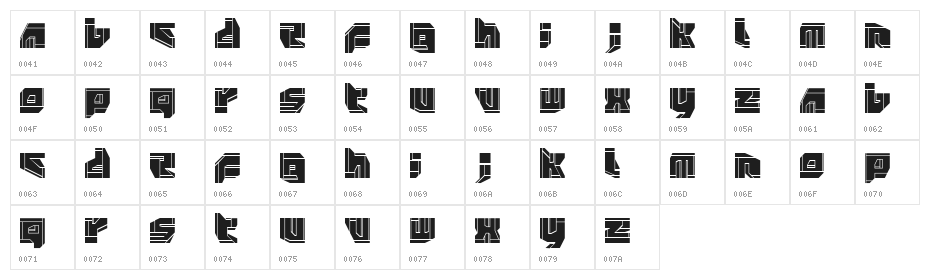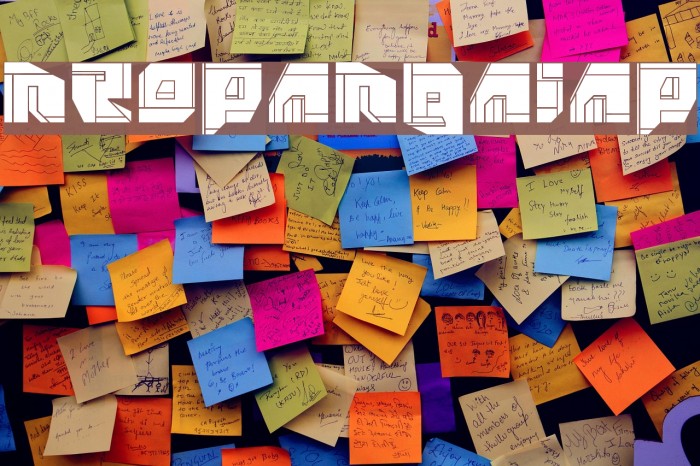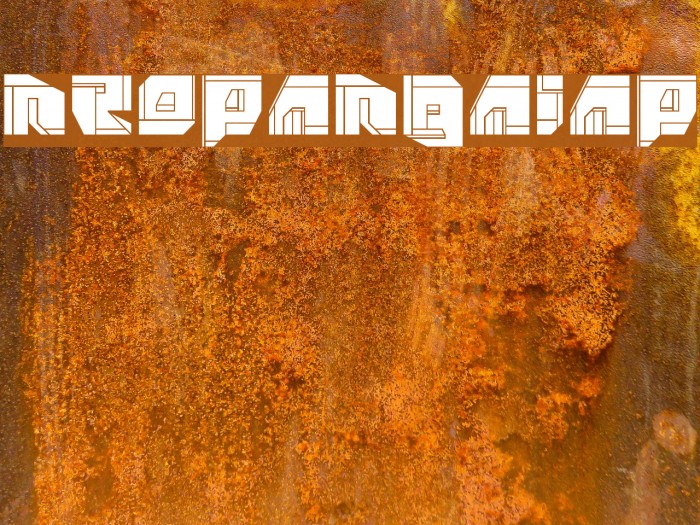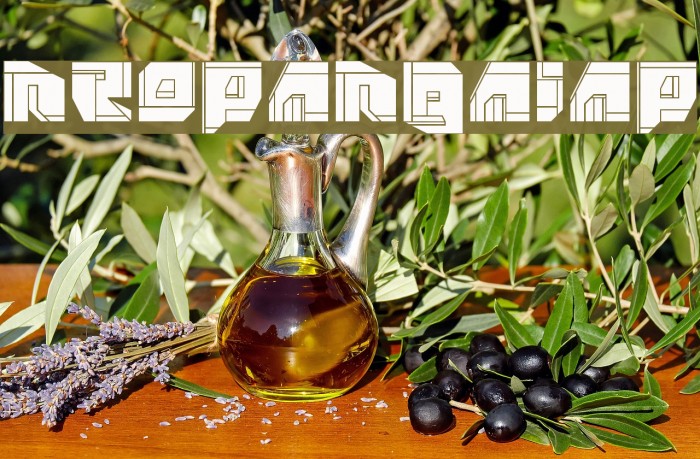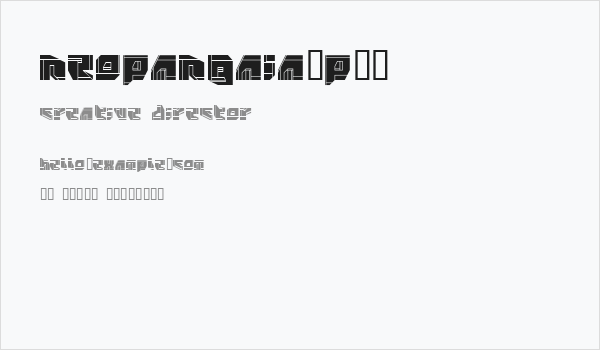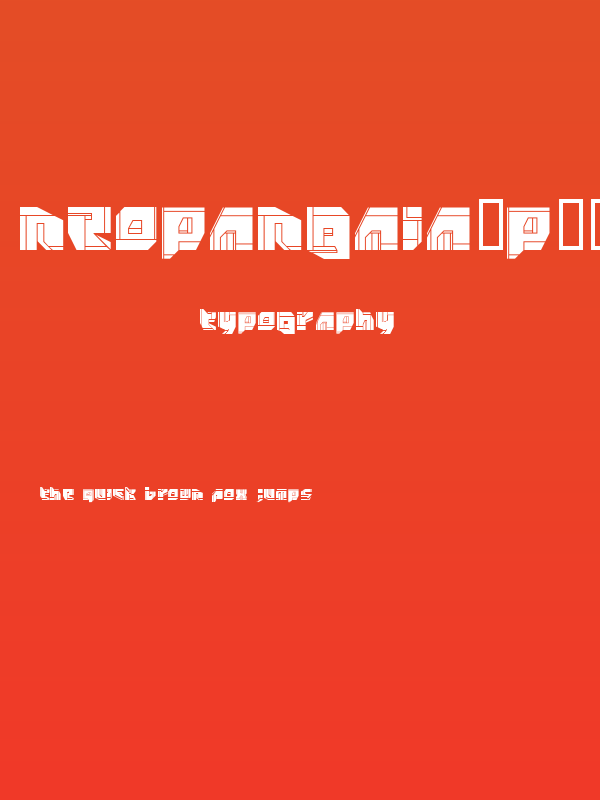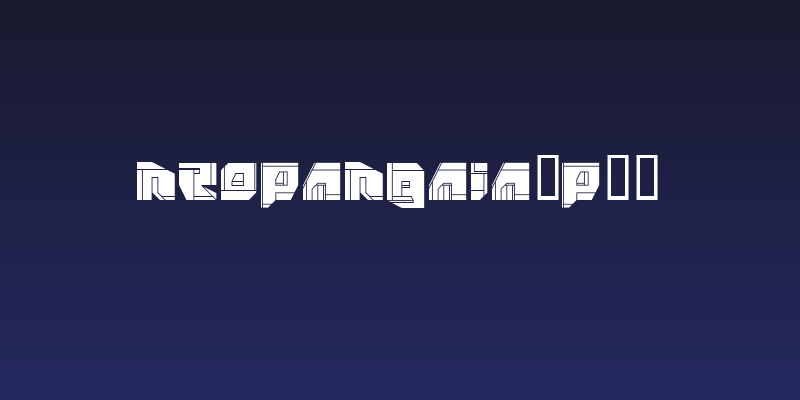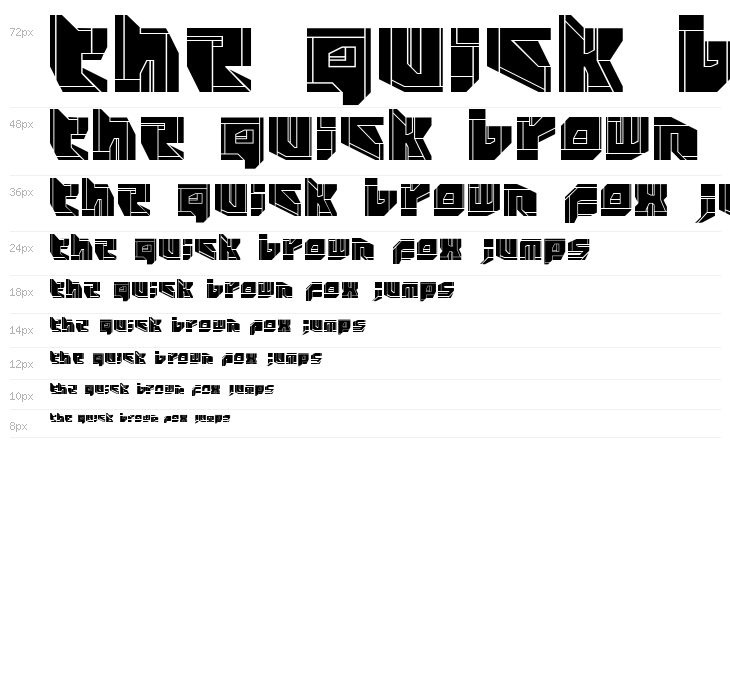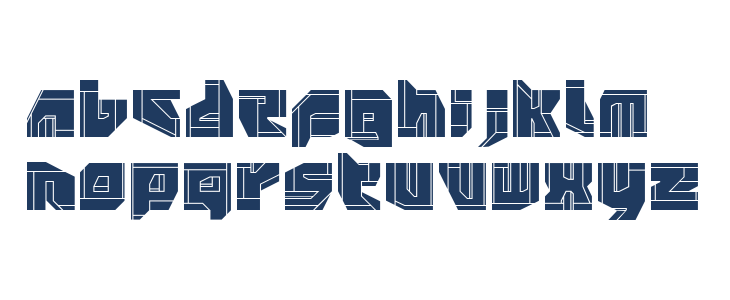
NeoPangaia[p2] Font
NeoPangaia[p2] Description
This font exhibits a bold and futuristic design with a strong geometric influence. The characters are constructed with sharp angles and clean lines, creating a sense of depth and dimension. The uppercase and lowercase letters maintain a consistent style, with each character featuring unique cutouts and angular shapes that add a dynamic and edgy feel. The numbers and special characters follow the same design principles, ensuring a cohesive look across all glyphs. This font is ideal for projects that require a modern and striking appearance, making it suitable for branding, posters, and digital media.
| Overall Style | Futuristic, Edgy |
| Proposed Projects | Ideal for branding, posters, digital media, and any project requiring a modern, striking appearance. |